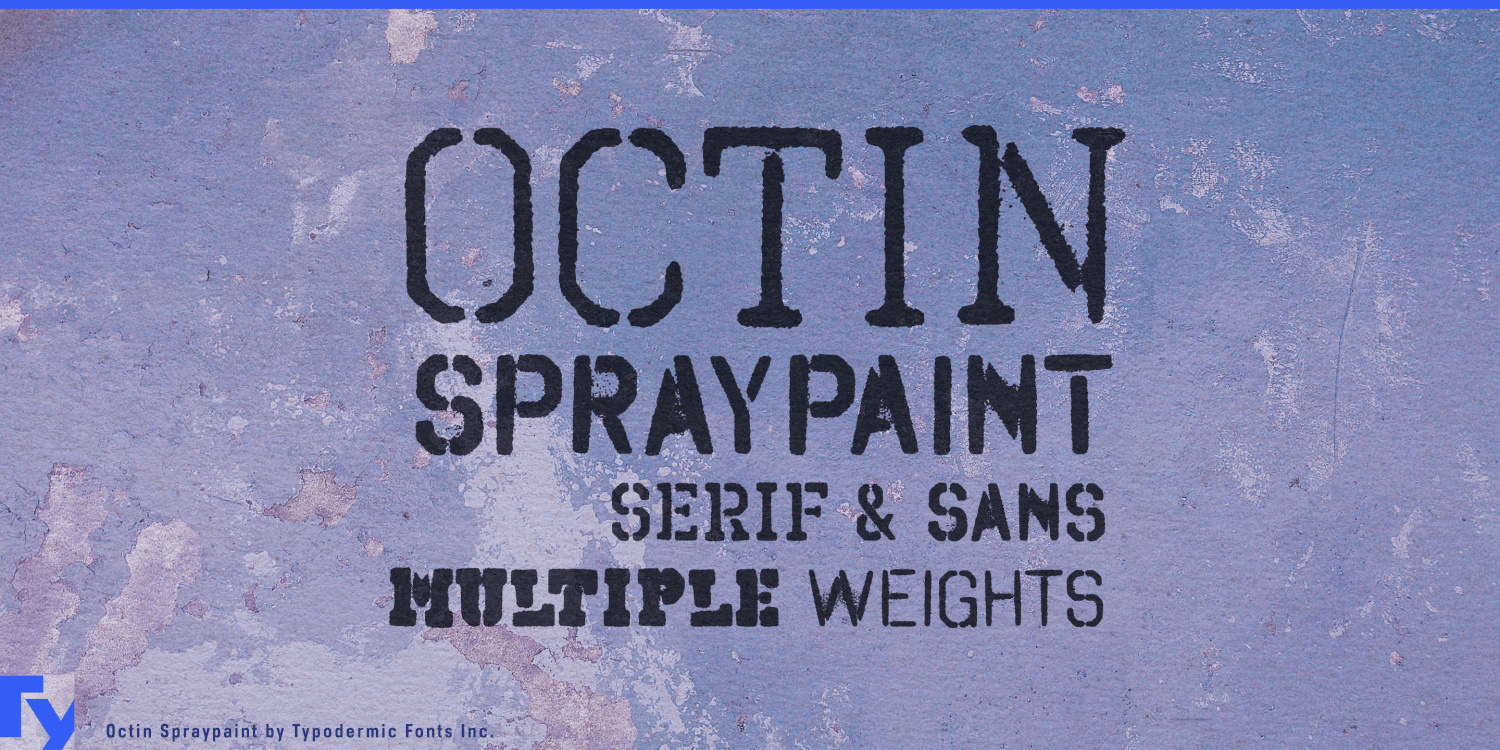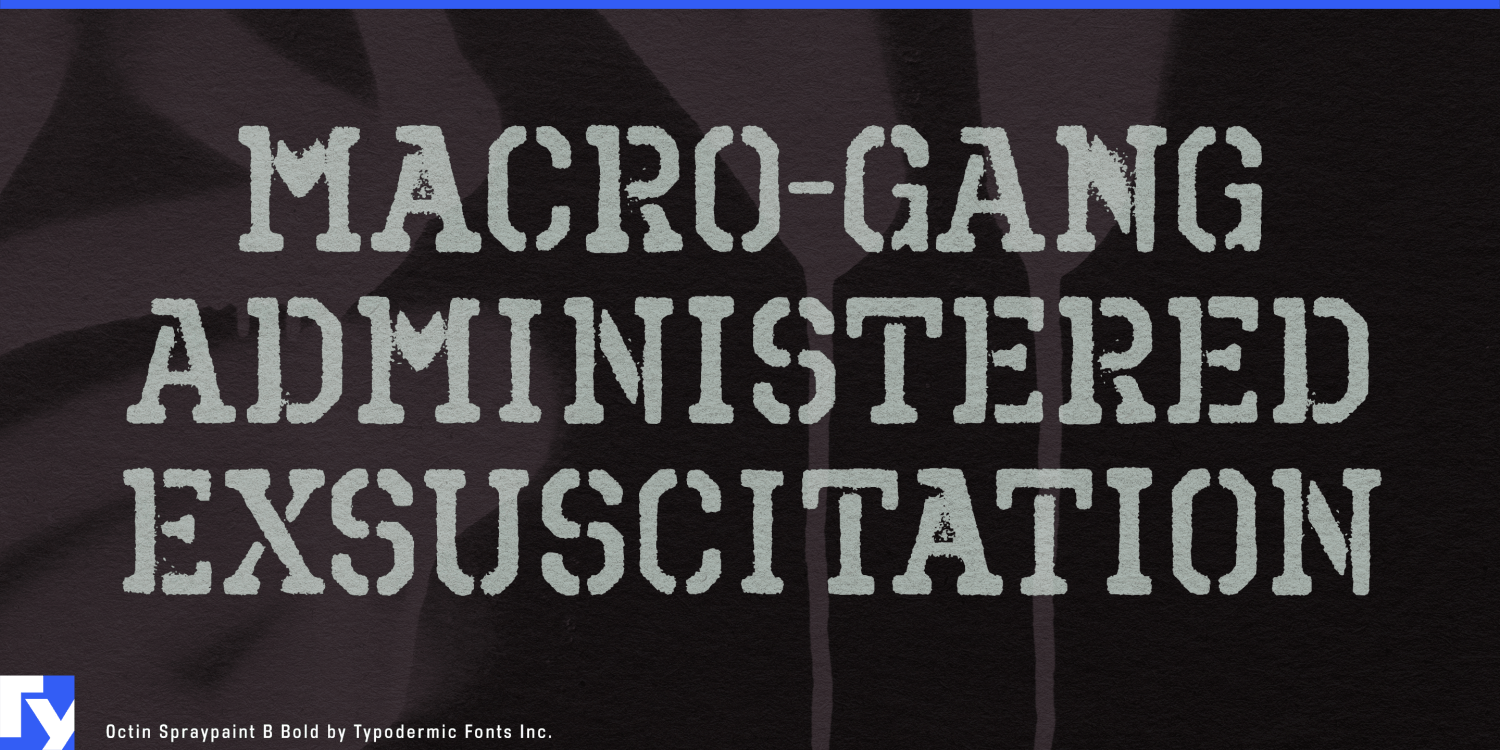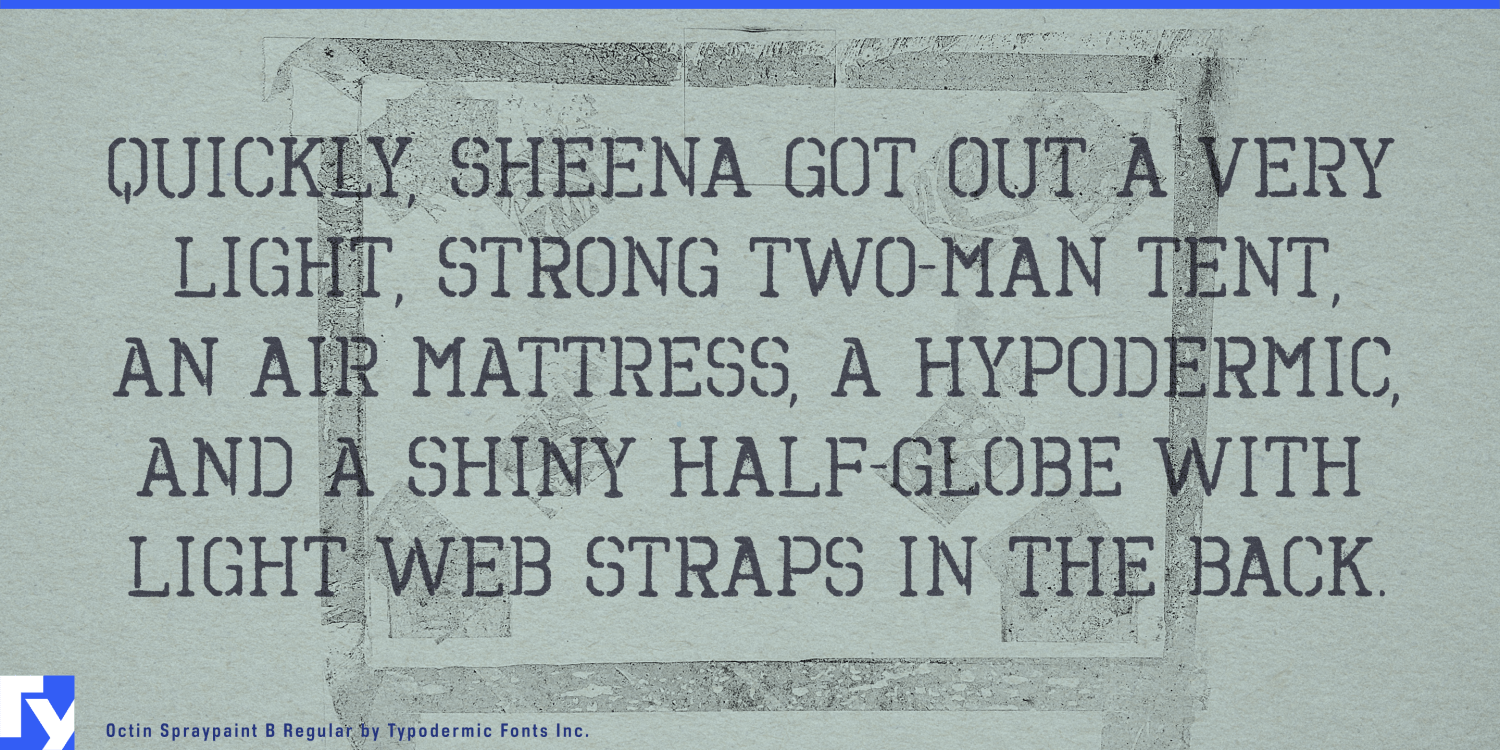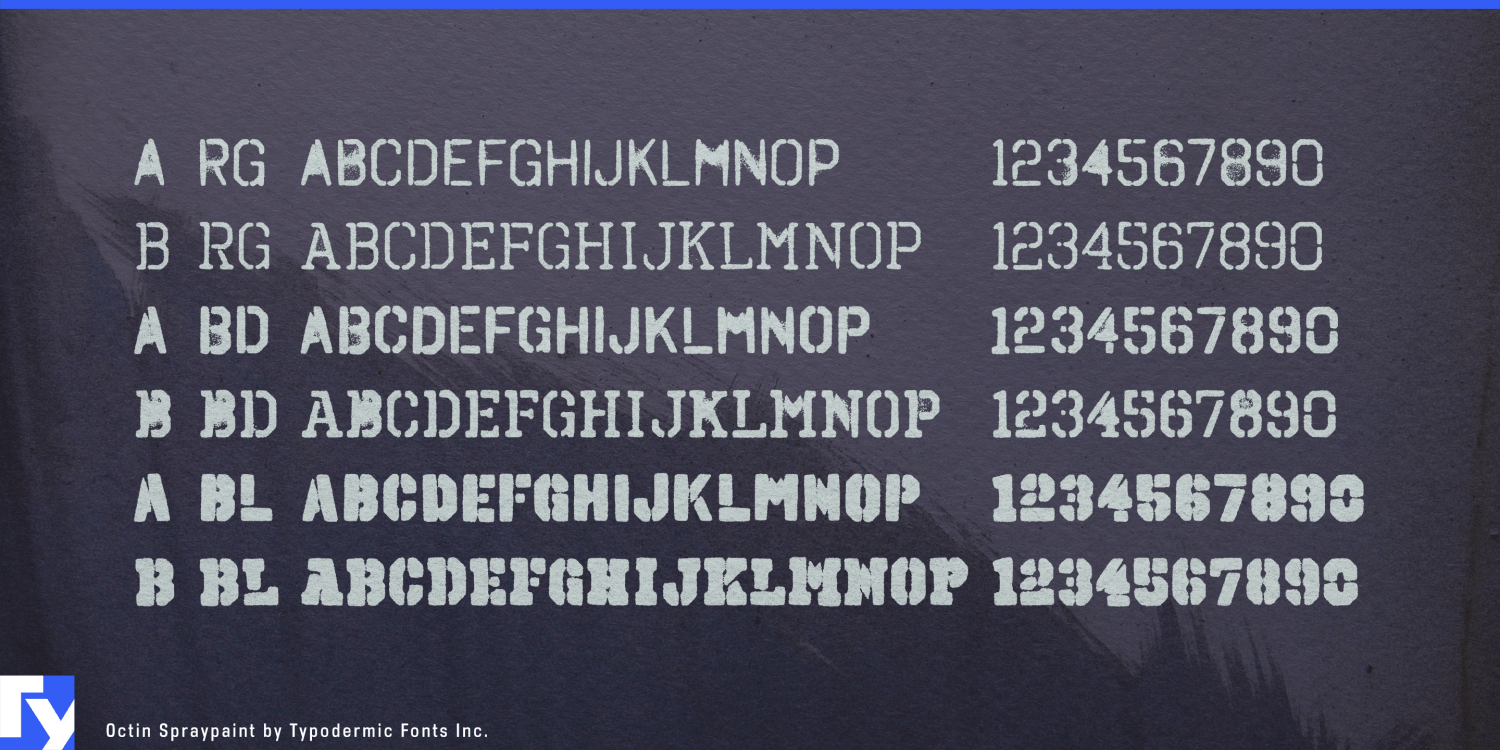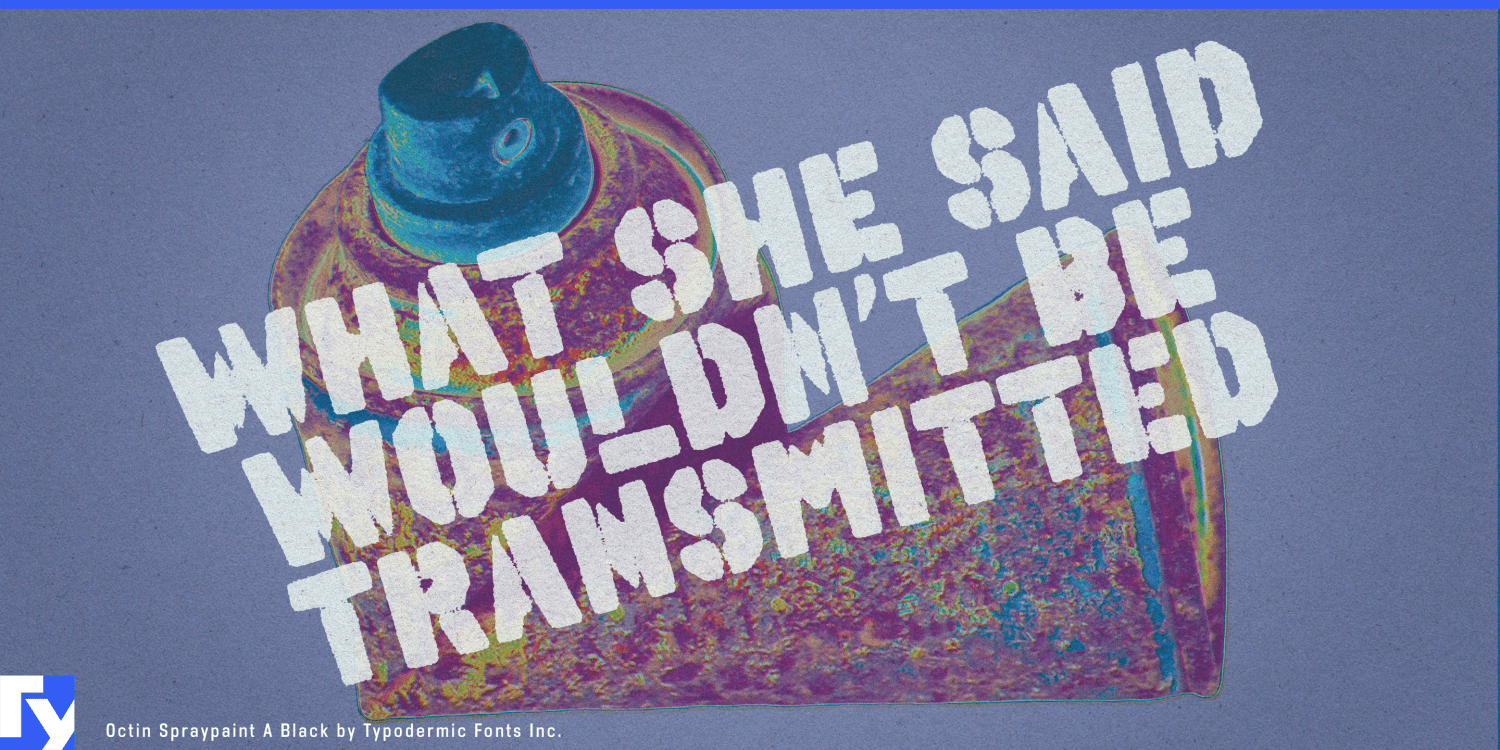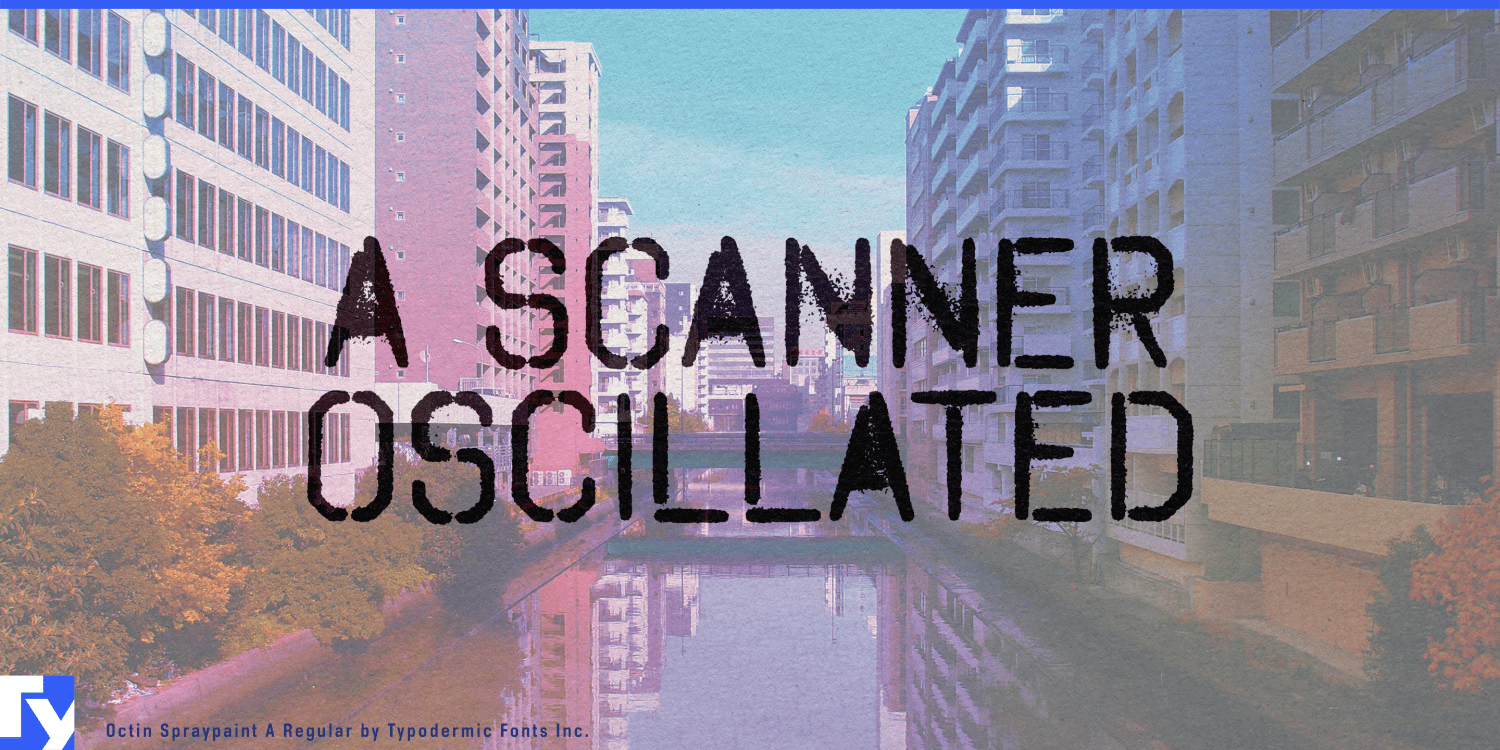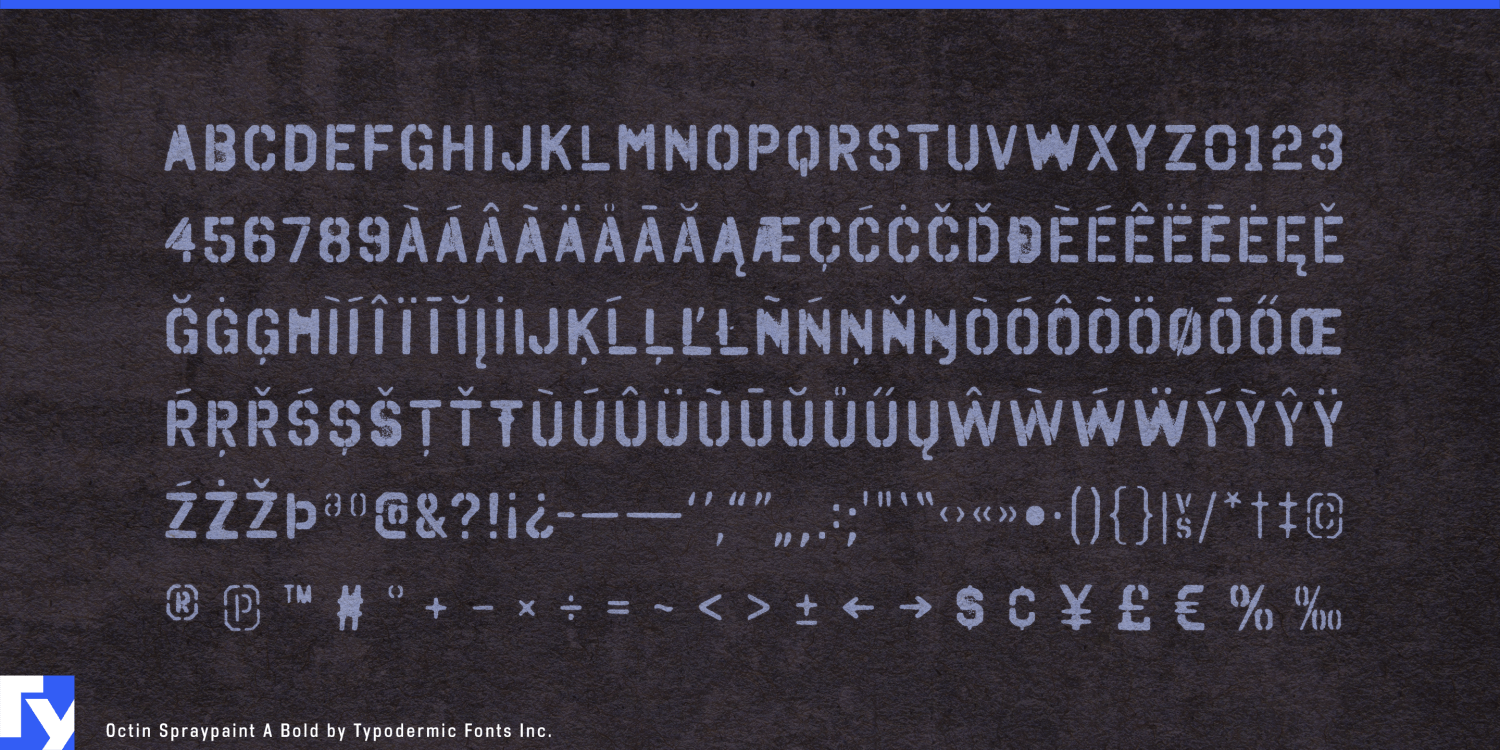
Octin Spraypaint
Font Family by Typodermic
One spray-painted message is easy to make look spontaneous. The harder problem is keeping that immediacy when the campaign expands across changing headlines, venues, merchandise and social graphics. Octin Spraypaint turns the visual language of freshly applied stencil paint into a repeatable display system.
The family combines Octin’s octagonal construction with a sprayed stencil surface that looks newly put down rather than gradually worn away. Six all-caps styles pair sans and serif structures across Regular, Bold and Black, giving designers room to vary emphasis without abandoning the same painted logic. The result is more controlled than freehand graffiti and more immediate than a distressed vintage face.
Sports fan activations are a natural fit. Octin Sports can carry the official team identity; Octin Spraypaint can handle the temporary layer around it: championship campaigns, stadium fan zones, sponsor activations, city takeover graphics, limited game-day merchandise and supporter installations. The sprayed surface suggests something applied for tonight’s match rather than permanently installed in the stadium.
Sneaker releases, sportswear collaborations and capsule apparel launches present the same problem in retail. Window graphics, temporary walls, hoardings, shopping bags and launch merchandise can feel site-specific and short-lived while still belonging to one professional campaign.
In fictional worlds, Octin Spraypaint works well on the unofficial side of the wall. Resistance factions, rebel organizations, underground networks and occupied-city settings can use it for faction names, chapter headings, safe-house markings, propaganda graphics and campaign material that look applied rather than authorized.
Art fairs, design festivals, urban-sports events, brand experiences and cultural campaigns can use the same language for zone names, installation titles, floor graphics, event merchandise and temporary walls. The paired sans and serif structures provide more flexibility than a single spray-stencil alphabet while the common texture keeps the system coherent.
Octin Spraypaint belongs to a coordinated six-family series. Octin College handles non-athletic academic identity; Octin Sports carries the official team voice; Octin Prison represents confinement and institutional control; Octin Stencil handles tactical and logistical marking; and Octin Vintage supplies worn heritage texture. Octin Spraypaint is the branch for freshly applied, temporary and deliberately disruptive display typography.